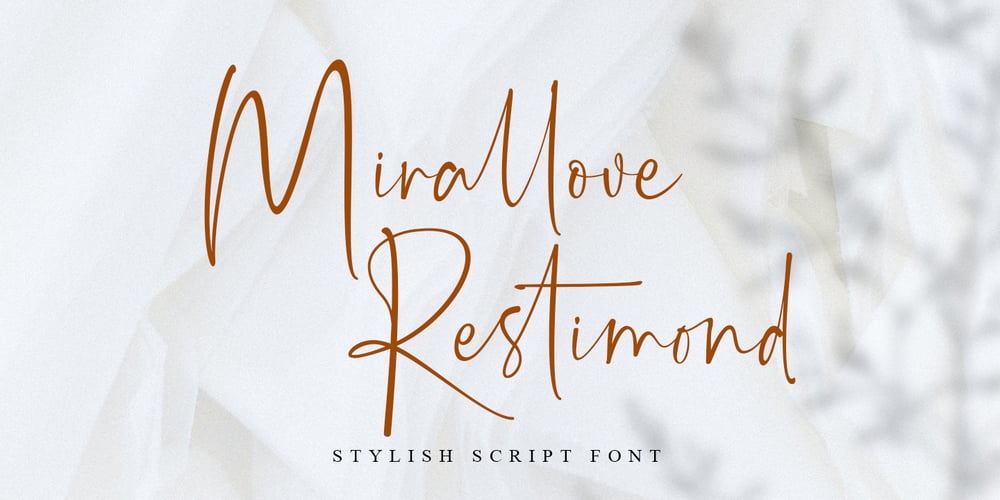
Mirallove Restimond Font Family was designed by Muhammad Mujibulloh and published by MJB Letters. Mirallove Restimond contains 1 styles and family package options. Hello everyone, we hope you have a great day.Say hi to Mirallove Restimond a new casual modern font that is very perfect for branding, wedding designs, quotes, posters, business cards, logotype, display, watermarks, signatures, etc.This font also has a special character in terms of thickness and thinness on each side, so it will give a neat handwritten impression that will make your design look very attractive and it is PUA Encoded.